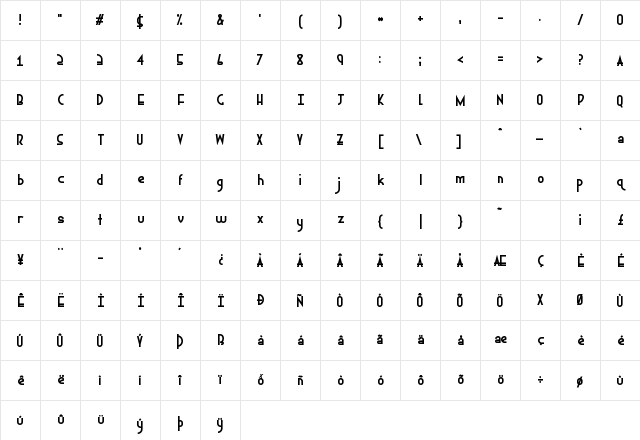
Ephemerian is a composed and adaptable typeface that performs quietly and consistently across a wide range of design contexts. Its bold stroke weight gives it real presence on the page.
Pro Tip: Use Ephemerian in both headline and body roles to test its range before committing to a single application.